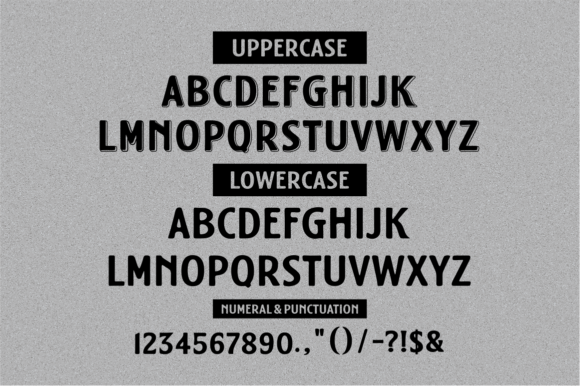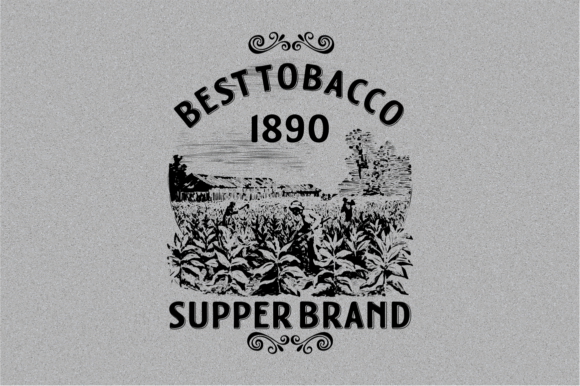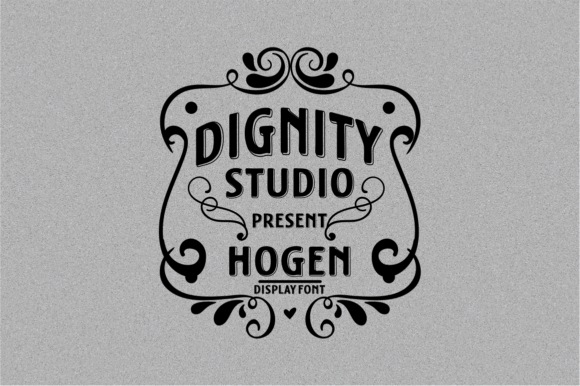
Introduction to Hogen Vantage Font
Do you remember that moment when you stumbled upon the perfect font for your creative project, and everything just clicked into place? For designers, finding the right font can be a game-changer, elevating your work from good to great. One such font that can add a touch of nostalgia and confidence to your designs is the Hogen Vantage Font.
This bold and thick lettered display font is a design resource that can breathe life into your projects. With its high-quality design and transparent background, it’s a versatile tool that can be used in various creative endeavors. Whether you’re working on a personal project or a commercial design, the Hogen Vantage Font can help you achieve your vision.
Key Features of Hogen Vantage Font
- Unique characteristics include a sleek and modern design, making it suitable for a wide range of creative projects.
Honest Review: Hogen Vantage Font
I recently had the chance to work with the Hogen Vantage Font on a creative project, and I must say, it’s been a great experience. This font is a high-quality design resource that offers a lot of versatility in terms of usage.
What works well with the Hogen Vantage Font is its clean and modern aesthetic. It’s perfect for any design project that requires a sophisticated look. The font also comes with a transparent background, which makes it easy to customize and pair with other design elements.
- ✨ Great for titles and headings due to its clean and modern aesthetic
- ✨ Versatile in terms of usage, making it perfect for a wide range of design projects
- ✨ Easy to customize due to its transparent background
However, there are a few limitations to consider. The font may not be suitable for projects that require a more playful or whimsical tone. Additionally, some users may find the font to be a bit too minimalist, which can make it difficult to use in projects that require a lot of visual interest.
Overall, I’m impressed with the Hogen Vantage Font. It’s a high-quality design resource that’s perfect for any creative project. The only thing to keep in mind is to consider the tone and style of your project before using this font.
Tips for Getting the Most Out of Hogen Vantage Font
Experiment with different font sizes and styles to create a visually appealing design. Use the font with a high-quality image to create a professional-looking design. Consider using the font with a transparent background to add a touch of elegance to your design.
Common Use Cases for Hogen Vantage Font
The Hogen Vantage Font is ideal for creative projects such as logos, business cards, and brochures. It is also suitable for presentations, documents, and websites that require a high-quality and professional-looking font.